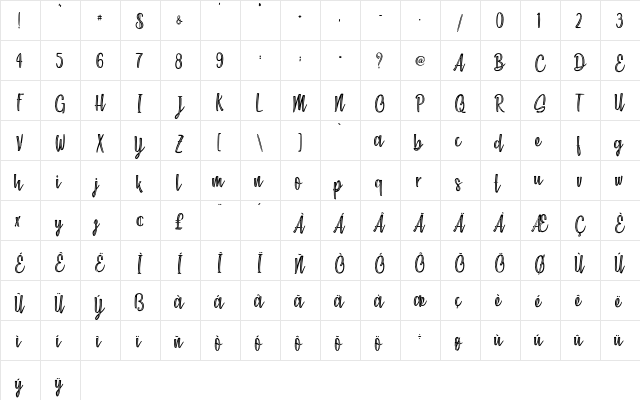
Chocolate Kids - Personal Use Regular
| Foundry | Typhoon Type - Suthi Srisopha |
| Designer | Typhoon Type - Suthi Srisopha |
Design Context for Chocolate Kids - Personal Use Typeface
Chocolate Kids - Personal Use has an approachable, lighthearted character — its loose, expressive forms are well-suited to children's content, casual branding, and fun-first design.
Font Pairing: Pairs well with a rounded or humanist sans for body copy, maintaining the friendly tone without relying on Chocolate Kids - Personal Use to carry extended reading.
Pro Tip: Avoid using Chocolate Kids - Personal Use for long passages of text — it works best for headlines, labels, and short calls to action.